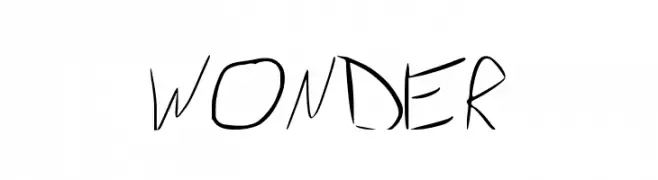
( HeHoo )
A playful, handwritten font with uneven strokes and a casual style.
( JasonFont )
A handwritten style font with an organic and casual appearance.
( LJ Design Studios - www.ljdesignstudios.com )
A bold, brush-style font with a hand-drawn, artistic appearance.
( Marta van Eck Designs - www.polish-your-art.com/boutique/index.php?main_page=index&cpath=9_14 )
A playful, casual handwritten font with irregular strokes and a natural flow.
( Michael D. Adams - www.triskele.com/roadgeek-fonts/ )
A bold, geometric dingbat font featuring road sign shapes.
( Misti's Fonts - mistifonts.com/ )
A casual, handwritten font with bold strokes and a playful style.
( NathanIsGreen - twitter.com/lagstation )
A playful, handwritten font with dynamic, slanted characters and a whimsical style.
( Nectar )
A playful, handwritten font with thin, dynamic strokes and a casual style.
( Nurrehmet Studio - creativemarket.com/nurrehmettt )
A bold, brush-style font with dynamic and expressive strokes.
( Pat Snyder - www.patsnyderartist.com/patsnyder_fonts.html )
A bold, brush-stroke inspired font with dynamic, artistic flair.